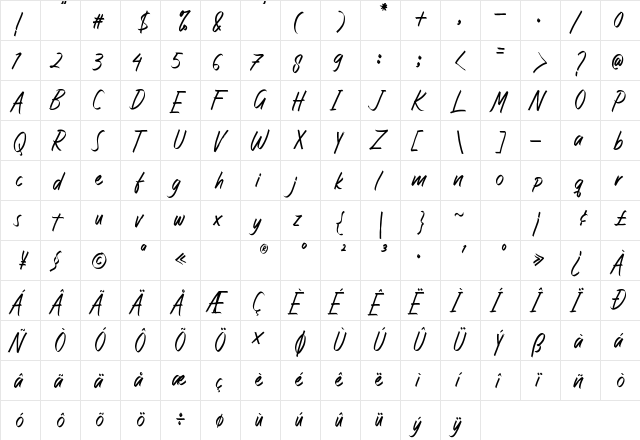
Angika Jaya Regular
| Foundry | StringLabs |
| Designer | Virgiawan Listanto |
Design Context for Angika Jaya Typeface
Angika Jaya is a composed and adaptable typeface that performs quietly and consistently across a wide range of design contexts.